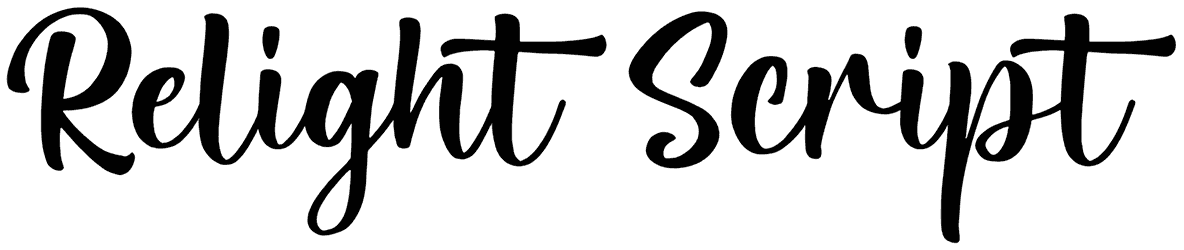
Relight Script Font
The Relight Script font not only allows you to have a handwritten font to use in your signature; rather, you can use its thin and thick lines in many designs.
For example, you can use this script font in designing business cards for girls, designing t-shirts, invitation cards, postcards, and many other designs. We would like to point out that this calligraphy font does not support numbers, but you can use other characters instead.